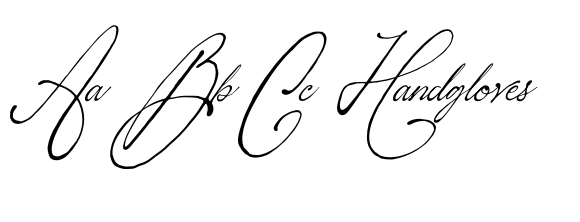
Sacred Letter
The Sacred Letter Font Family was designed by Muhammad Ridha Agusni and published by 38-lineart. Sacred Letter contains 3 styles and family package options. More about this family
Sacred letter is a font that follows the rules of calligraphy writing, but the difference is there is a natural emphasis on handwriting. The Thick and thin are not smooth to describe the flow of natural ink.
The pure calligraphy tends to the classic style with nuances of the grandeur of the past. This font is more open and appears as-is. The flexibility of the style makes it can survive in the classic style and modern style.
Sacred Letter is a flowing and classic handwritten font, described by an elegant touch, perfect for your dearest projects. Fall in love with its incredibly distinct and timeless style and use it to create spectacular designs!
This font is PUA encoded which means you can access all of the glyphs and swashes with ease! It features a varying baseline, smooth lines, gorgeous glyphs and stunning alternates.